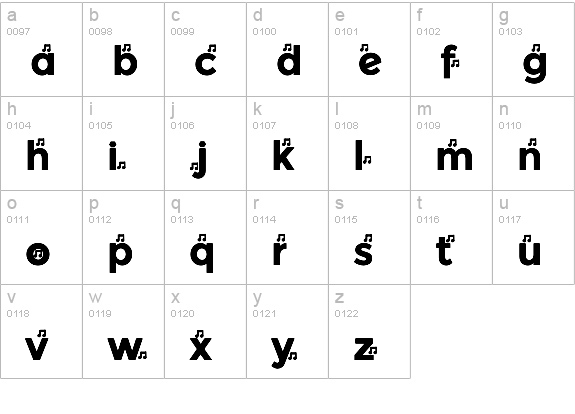
YentNotes Cacophony font is a unique and captivating typeface that exudes a sense of excitement and energy. With its bold and irregular letterforms, this font is perfect for making a statement and breaking away from traditional typography. The Cacophony font is a harmonious blend of chaotic shapes, creating a visually stunning display. Each letter seems to dance on the page, creating a symphony of curves and angles that demand attention. It is as if the letters themselves are alive, ready to burst off the page and into the world. This font is ideal for a variety of creative projects, including posters, flyers, album covers, and more. It adds a touch of personality and uniqueness to any design, making it truly stand out from the crowd. But what makes YentNotes Cacophony font even more remarkable is that it is free. That's right, this captivating font is freely available to download at FontsMarket.com. Now, you can experience the power and beauty of this font without any cost. So, if you're looking to add a touch of chaos and excitement to your designs, look no further than YentNotes Cacophony font. Download it today from FontsMarket.com and let your creativity soar.